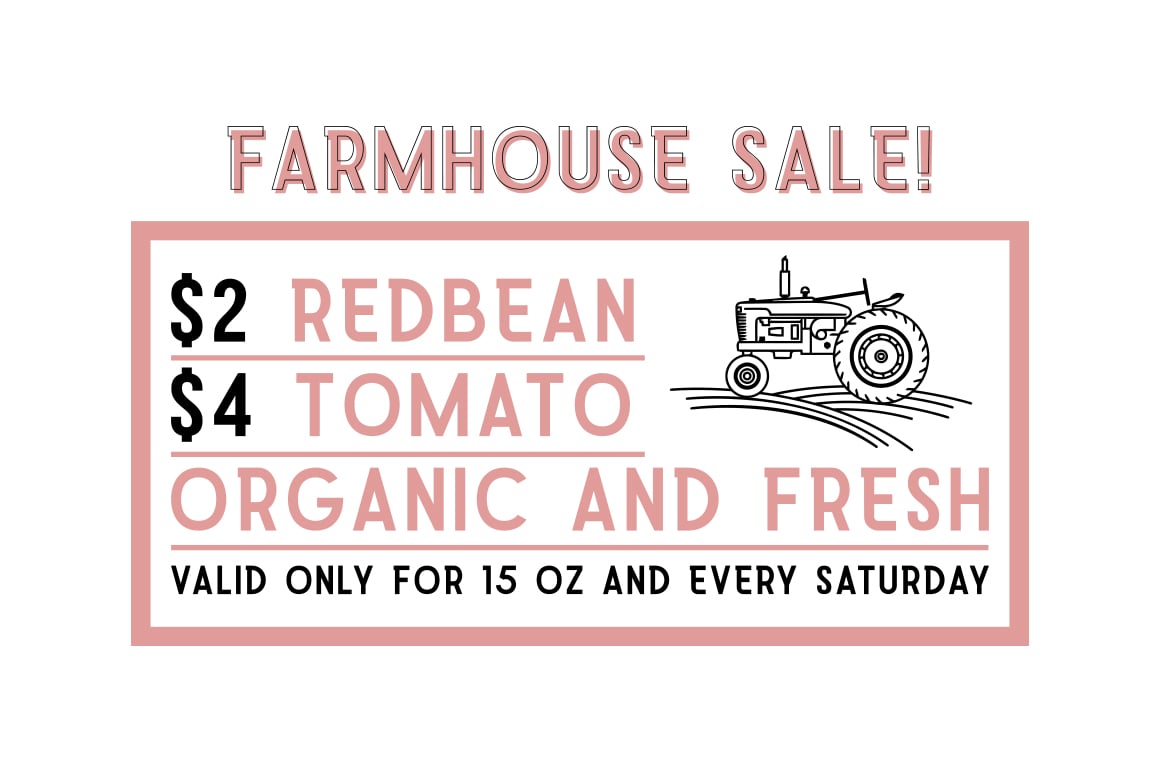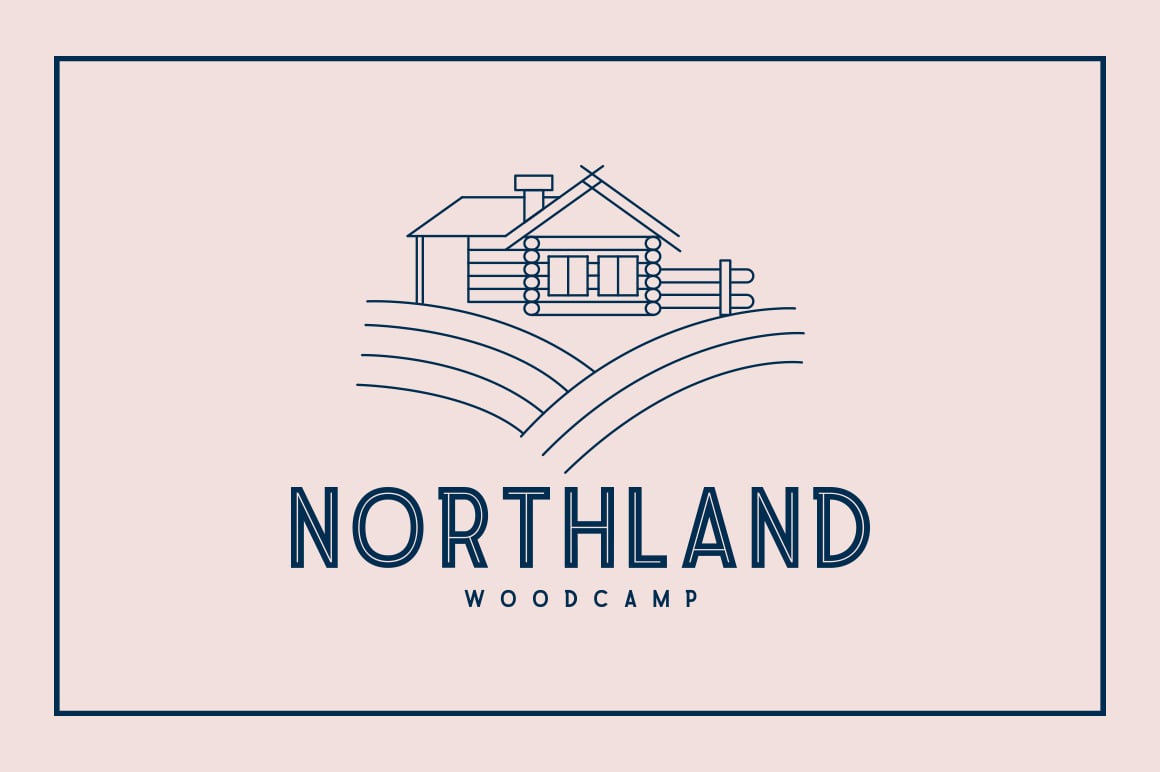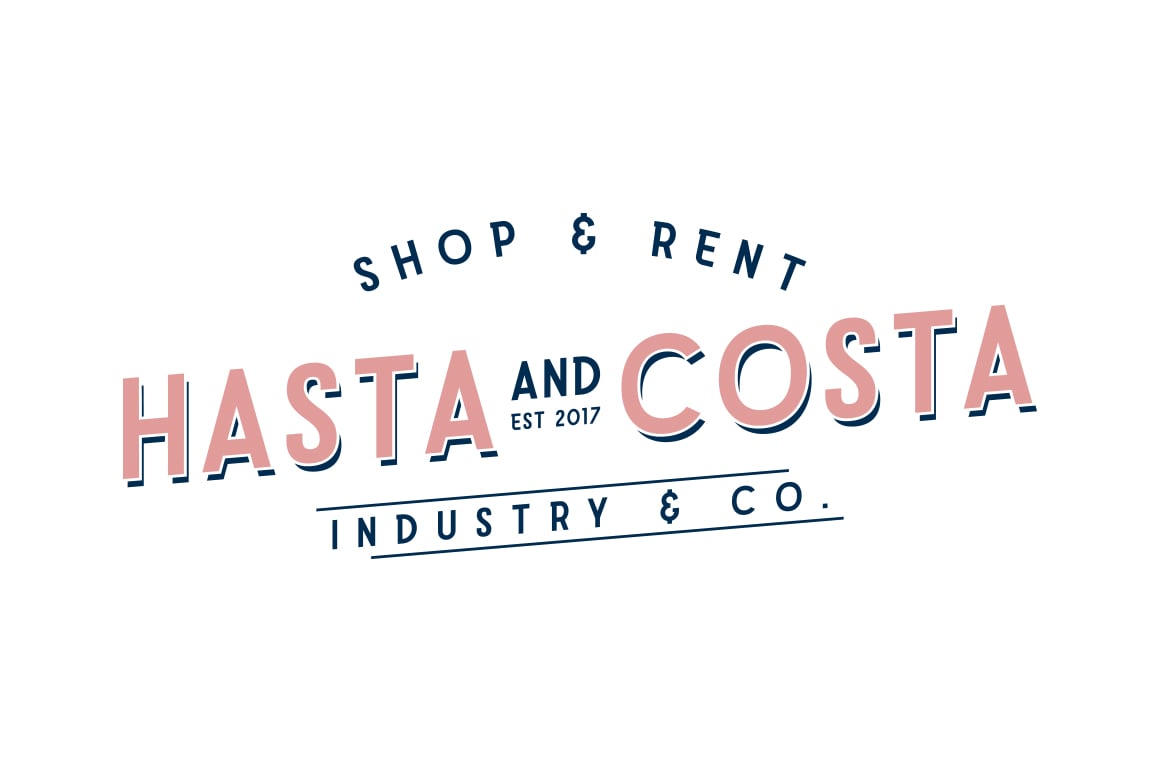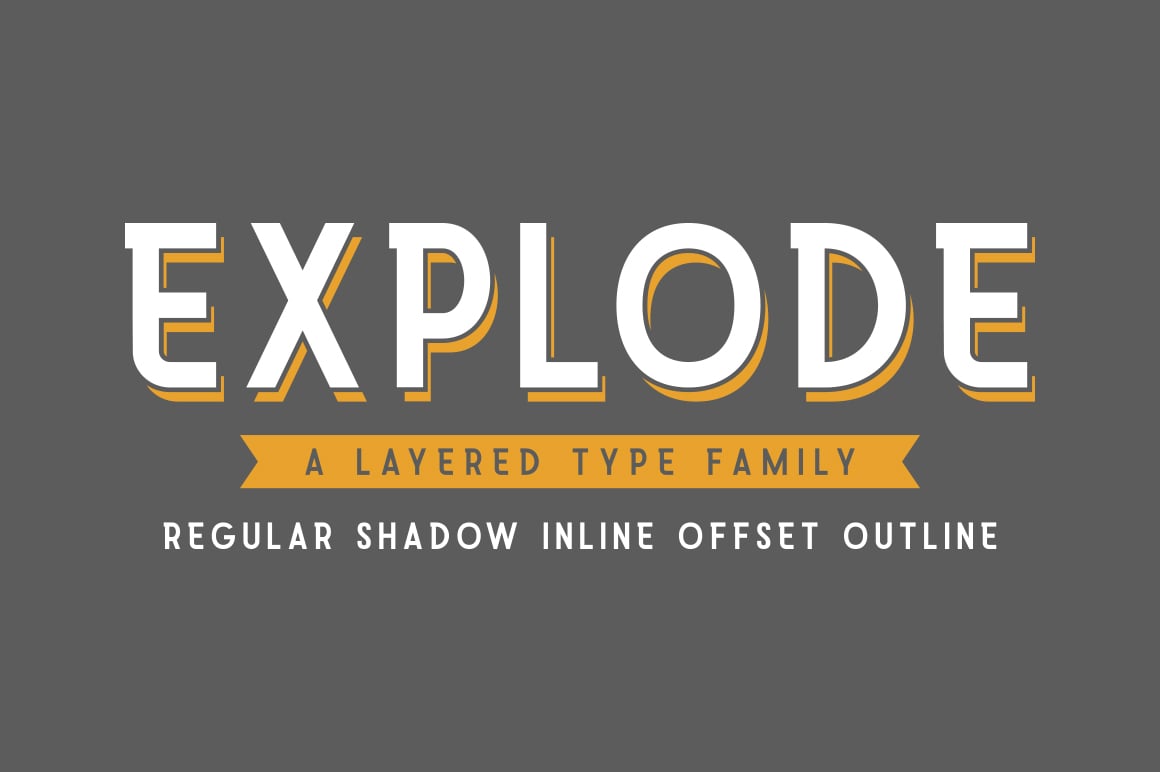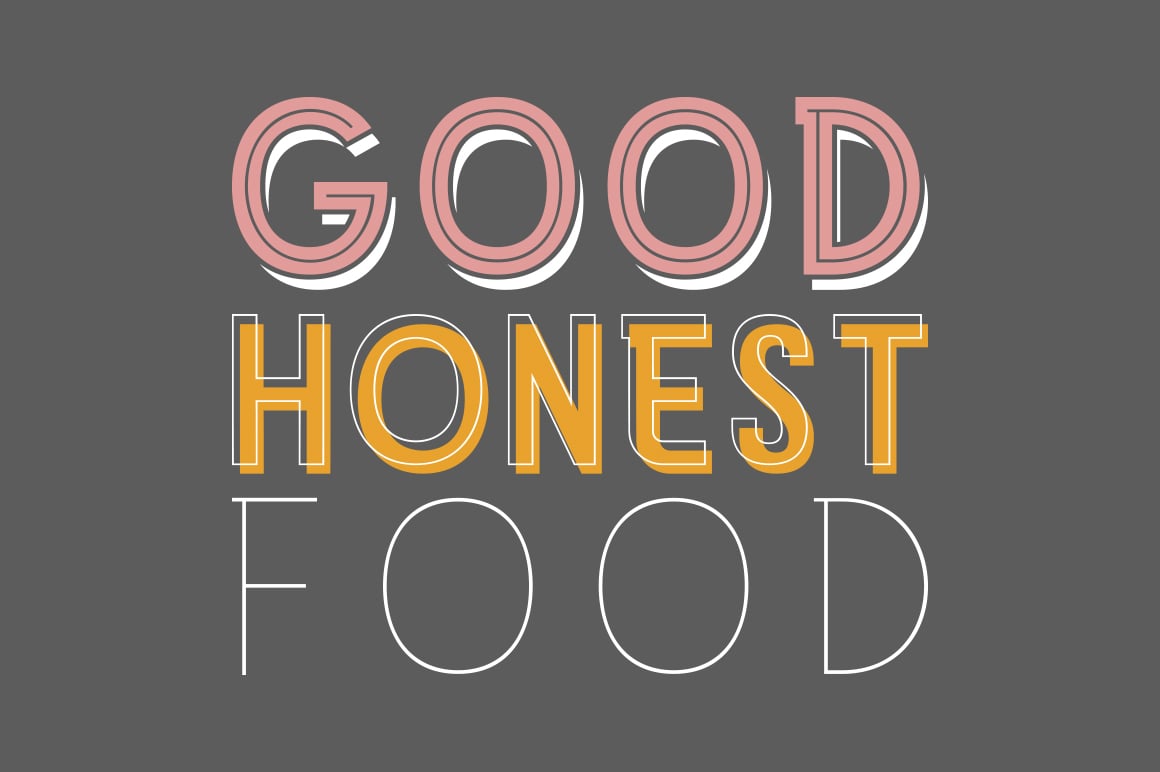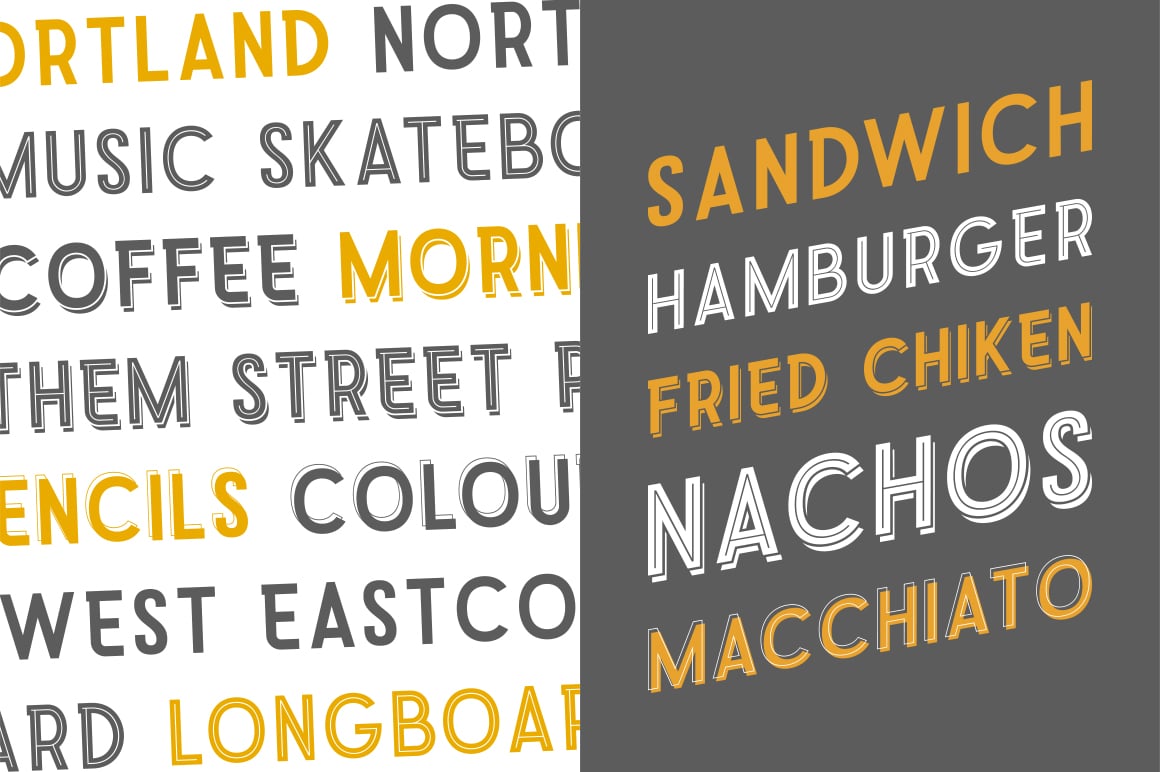
Explode
Explode is a layered type family, this font really simple, easy and playful. Explode have 4 fonts and comes with allcaps, basic punctuation and multiple language support. This font perfect for branding, label, greeting card, display, headers, advertising, badges, and many more.